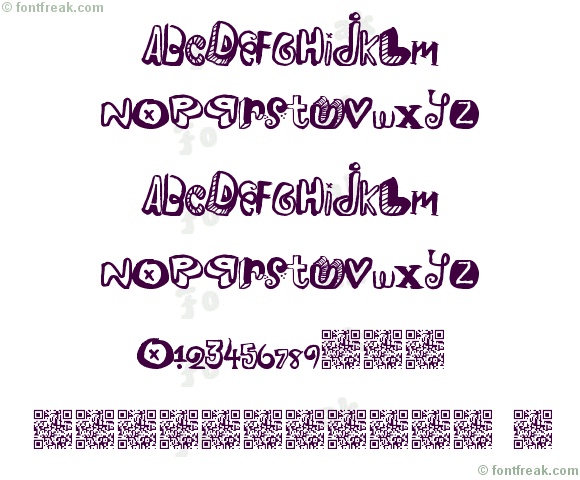
PleasureRiot
PleasureRiot by XEROGRAPHER FONTS is a captivating display typeface that falls into the decorative category. This unique font features a playful and whimsical design, characterized by its varying stroke weights and delightful contrast. Each character showcases an eclectic mix of patterns and textures, giving it a lively and dynamic appearance. The spacing is thoughtfully crafted to maintain readability while allowing the distinctiveness of each letter to shine through. This makes PleasureRiot not just a font, but an artistic statement.
The versatility of PleasureRiot makes it ideal for a variety of creative projects. It can be particularly effective for designing vibrant wedding invitations, where its charming aesthetic can enhance the romance of the occasion. Additionally, it works wonderfully for movie posters, lending a fun and eye-catching element that captures attention. Restaurant menus can also benefit from its playful style, creating a welcoming atmosphere that invites diners to explore the offerings. Content creators and social media managers will find PleasureRiot perfect for eye-catching graphics that stand out in a crowded digital landscape.